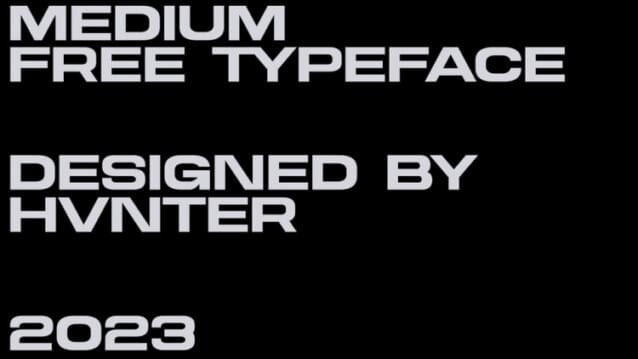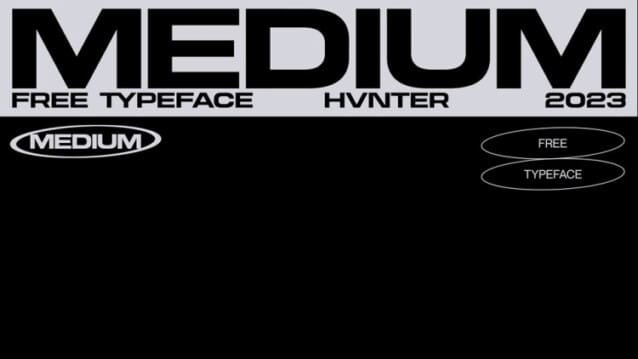
Medium Font Free
Medium Font is a strong and bold sans typeface exudes strength and confidence with its clean lines and thick letterforms. Medium is custom-made for projects that demand a sense of authority and boldness. The font is ideal for impactful headlines, banners, signage, or any design that requires a typographical statement.